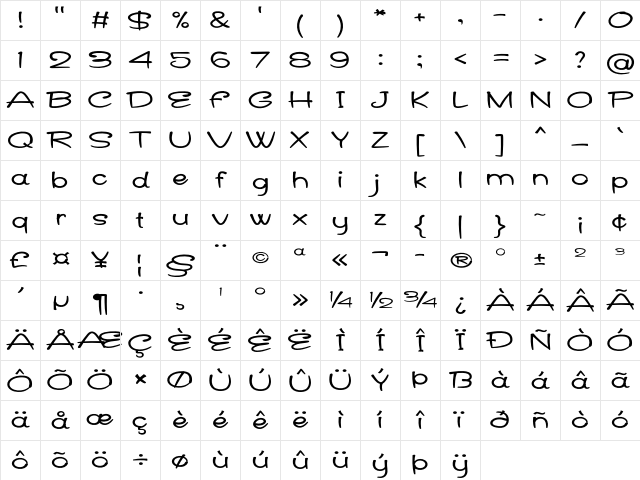
Haribu Expanded Regular Free Font
Haribu Expanded Regular
Style: Expanded Regular
Haribu Family
Haribu Expanded Regular
Complete Haribu Expanded Regular glyph index. Displaying only characters natively supported by Haribu Expanded Regular font.
Design Context for Haribu
Haribu is a composed and adaptable typeface that performs quietly and consistently across a wide range of design contexts.